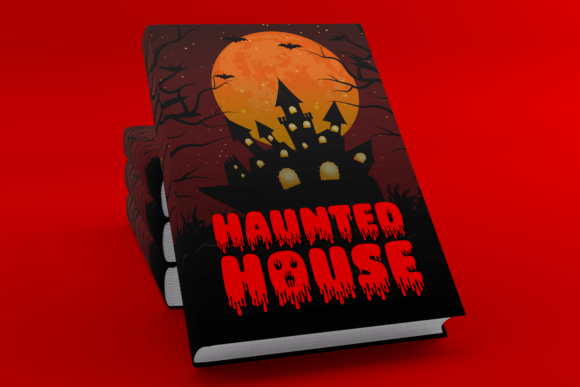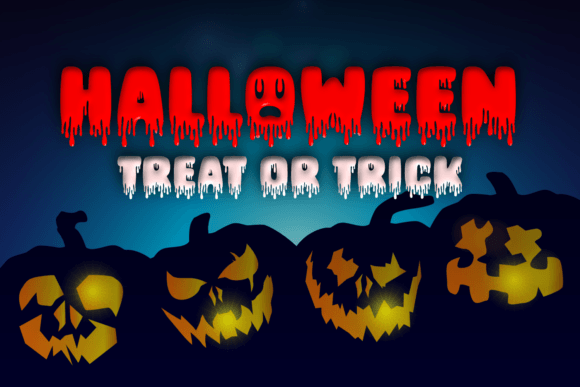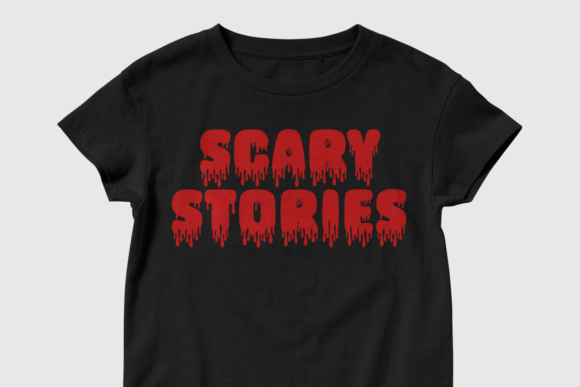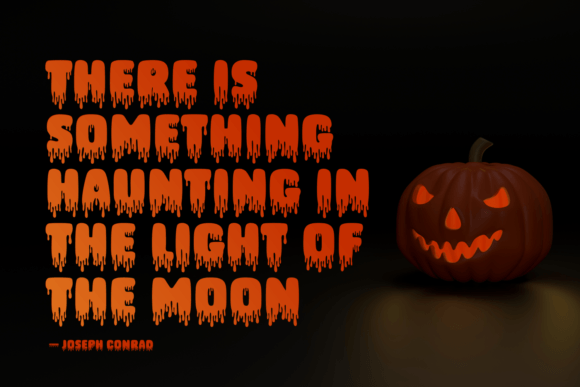
Introduction to Bloody Scene Font
As a designer, you’ve likely found yourself in the midst of a creative project, staring at a blank canvas or a dull template, searching for the perfect element to bring it to life. You’ve scoured the internet for the perfect font, the one that screams “Spooky Season” and sends shivers down your spine. And then, it hits you – the Bloody Scene Font.
This iconic typeface is the epitome of Halloween horror, with letters that seem to drip with blood, adding a macabre atmosphere to any design. Whether you’re creating party invitations, haunted house signage, or other spooky creations, the Bloody Scene Font is the perfect design resource to add a blood-curdling touch. With its high-quality design and transparent background, you can easily integrate it into your projects, making it a valuable asset for any designer looking to create something truly haunting.
Key Features of Bloody Scene Font
- High-quality font with a bloody, crime scene-inspired design, perfect for creative projects that require a dark and edgy aesthetic.
- Unique, hand-crafted design elements, such as blood splatters and crime scene tape, add an extra layer of realism to any design.
Honest Review: Bloody Scene Font
I recently stumbled upon the Bloody Scene Font, and I must say it’s been a game-changer for my creative projects. As a designer, I’m always on the lookout for high-quality design resources that can help elevate my work.
- ✨ Unique and bold design aesthetic
- ✨ Perfect for horror-themed projects or anything that needs a touch of edginess
- ✨ High quality and crisp typography
- ⚠️ Limited font combinations (only a few styles to choose from)
- ⚠️ May not be suitable for corporate or professional projects (too bold and eye-catching)
Overall, I’m really impressed with the Bloody Scene Font. It’s a fantastic addition to my design arsenal, and I’m excited to see how it performs in future projects.
Common Use Cases for Bloody Scene Font
The Bloody Scene Font is perfect for horror-themed projects, such as movie posters, book covers, and video game designs. It’s also great for creating a spooky or eerie atmosphere in your design.
Does the Bloody Scene Font have a transparent background?
Yes, the Bloody Scene Font is designed with a transparent background, making it ideal for use in graphic design projects that require a clean and minimalist look. The transparent background allows the font to blend seamlessly with other design elements, giving your creative project a professional finish.